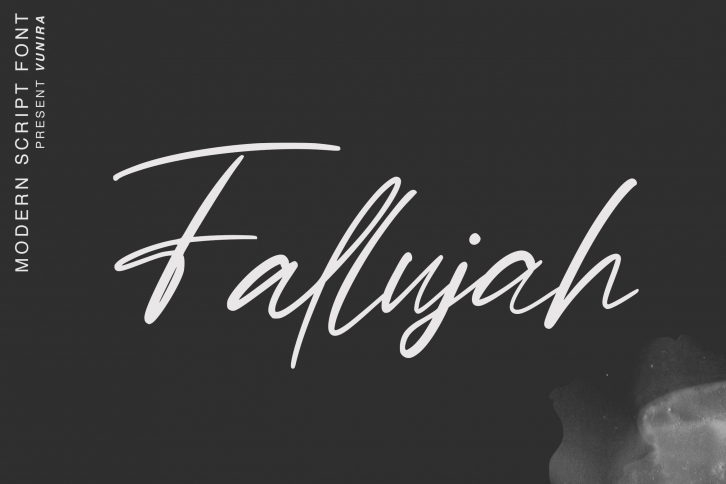
Fallujah is a great font that was designed by Vunira. Imagine the amount of combinations you can create using this font! The archive is 15.25 MB and it was released on July 14, 2020. Fallujah looks beautiful on wedding invitations, greeting cards, logos, posters, labels, t-shirt designs, logos, business cards and is perfect for use in ink or watercolor works, fashion, magazines, packaging and food menus, children's books and more!